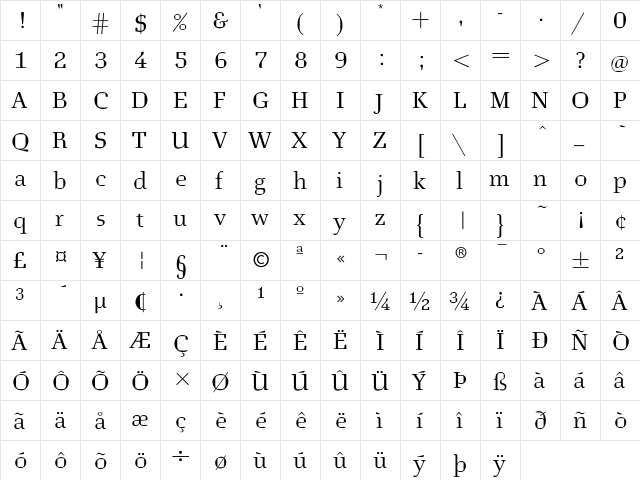
Euclides Regular
Design Context for Euclides Typeface
Euclides is a composed and adaptable typeface that performs quietly and consistently across a wide range of design contexts.